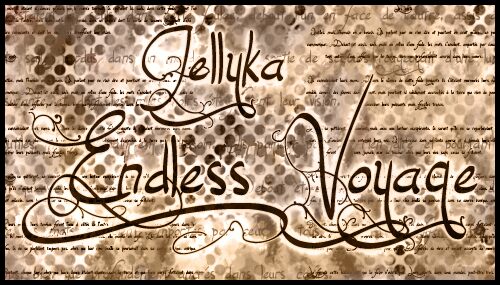
Jellyka End Less Voyage by Jellyka Nerevan of CuttyFruty.com is a free calligraphic script with sweeping loops and dramatic changes in stroke weight. Long flourishes curl through and cross neighboring letters.
Romantic and fairy-tale themes are a natural match for this elaborate style. It can shape wedding invitations, book covers, and theatrical posters with a lavish decorative signature. The curling ornament also suits luxury fashion branding and period romance publishing.
There is a small mark on the underscore (_) that shows where the character actually is.